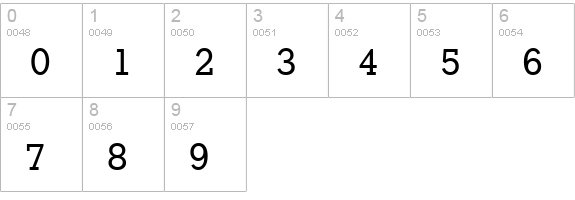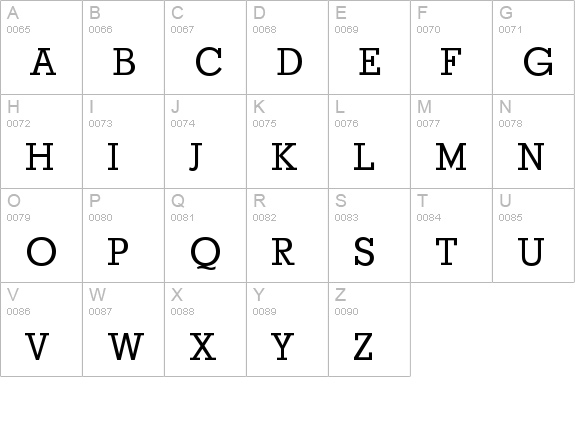
StymieT Font Details
StymieT font is a versatile and modern typeface that exudes elegance and sophistication. With its clean lines and contemporary design, this font is perfect for a wide range of design projects, from branding to editorial layouts. The sleek and stylish characters of StymieT font make it a standout choice for any designer looking to make a statement. What's even better is that StymieT font is available for free download at FontsMarket.com. This means you can enhance your projects with this stunning font without having to spend a dime. Don't miss out on the opportunity to add StymieT font to your collection and elevate your designs to the next level.